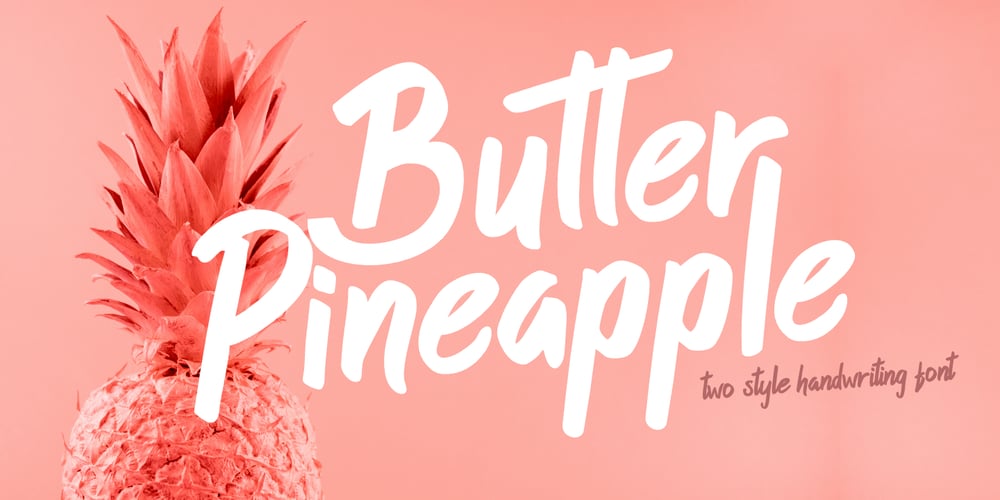
Butter Pineapple
Butter Pineapple font
Butter Pineapple Font Family was designed by Eka Pamuji and published by EKNOJI. Butter Pineapple contains 2 styles and family package options. Butter Pineapple a display font. This font will looks awesome and amazing in many way to your latest project. Butter Pineapple is perfect for many different project such as logos & branding, invitation, stationery, wedding designs, social media posts, advertisements, product packaging, product designs, label, photography, watermark, special events or anything.What’s Included :- Character set A-Z- Character set a-z- Bonus vector EPS format- Support multi-language glyphs- Works on PC & Mac- Simple installations- Accessible in the Adobe Illustrator, Adobe Photoshop, Adobe InDesign, even work on Microsoft Word.Thanks for looking, and I hope you enjoy it! Please don’t hesitate to drop me a message if you have any issues or queries.EKNOJI